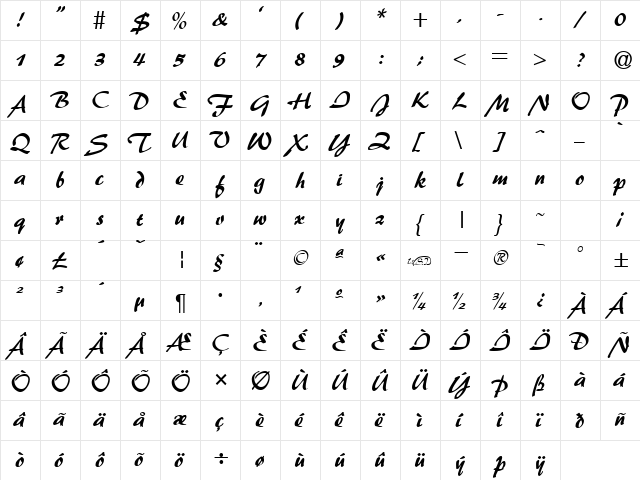
Brush Flash Regular
Design Context for Brush Flash Typeface
Brush Flash brings a calligraphic fluidity to the page — its connecting strokes and expressive curves give it an unmistakably human quality.
Font Pairing: Combine Brush Flash with a simple geometric sans for maximum contrast — the tension between flowing curves and clean structure is a classic typographic pairing.
Pro Tip: Pair Brush Flash with a clean sans-serif for supporting text. The contrast between fluid script and geometric structure creates an elegant typographic hierarchy.